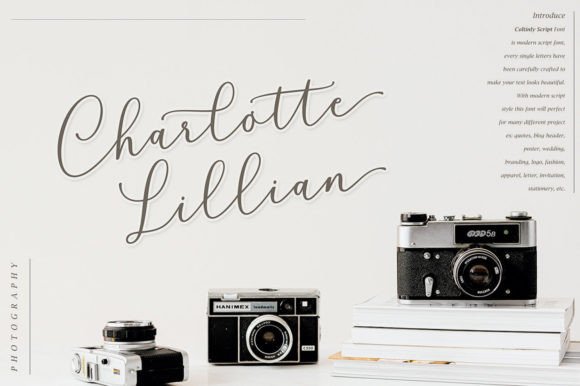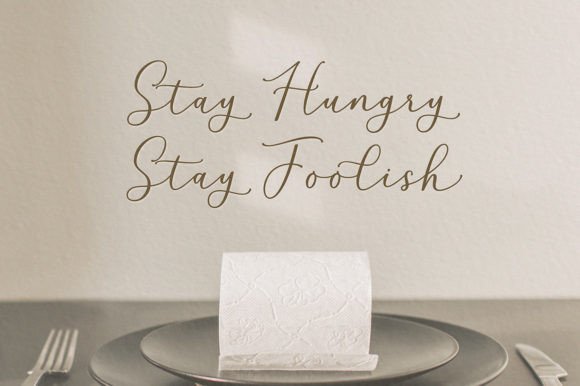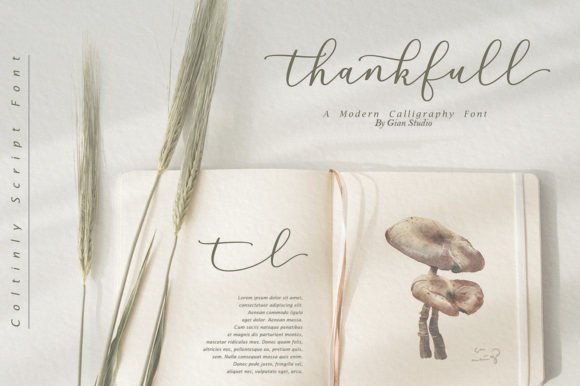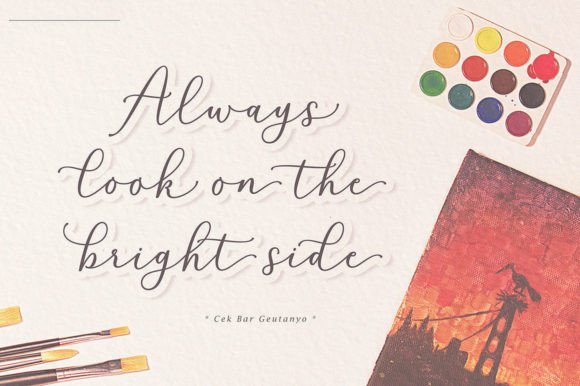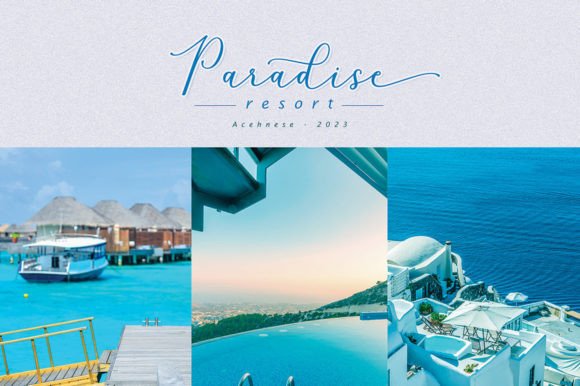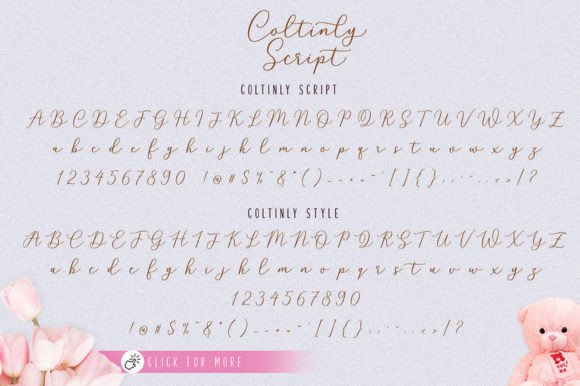
The Quest for the Perfect Script Font: Discovering Coltinly
I’ll never forget the time I was working on a wedding invitation project, and my client asked for a font that was both elegant and modern. I scoured the internet, tried out countless fonts, but nothing seemed to fit the bill. That was until I stumbled upon Coltinly Script Font. ✨
As a designer, I’ve learned that finding the right font can make or break a project. And I’m excited to share my experience with Coltinly, a beautiful script typeface that’s stolen my heart. In this article, we’ll dive into the world of Coltinly, exploring its features, how to use it, and what makes it so special.
A First Impression: What I Love About Coltinly
So, what makes Coltinly so charming? Here are a few things that I love about this font:
- 💕 Beautiful calligraphy: Coltinly’s script style is reminiscent of handwritten calligraphy, making it perfect for projects that require a personal touch.
- ✅ Modern and irregular baseline: This font’s unique baseline gives it a fresh, modern feel that’s hard to find in traditional script fonts.
- 🎉 PUA encoded: Coltinly is PUA (Private Use Area) encoded, which means you can access all the amazing glyphs and ligatures with ease!
- 📚 Versatile: Whether you’re working on wedding invitations, greeting cards, or social media graphics, Coltinly is suitable for a wide range of projects.
The Not-So-Perfect: A Few Quirks
While Coltinly is an amazing font, it’s not without its quirks. Here are a few things to keep in mind:
- 🤔 Limited kerning options: Some users might find the kerning options a bit limited, especially when working with longer texts.
- ⚠️ Occasional glyph issues: As with any font, there might be occasional issues with glyph rendering, especially on certain platforms or devices.
The Story Behind Coltinly
Coltinly is a font that’s close to my heart, but I don’t actually know its backstory. Let’s imagine that it was created by a young designer named Emma, who was inspired by the beautiful calligraphy of her grandmother. Emma wanted to create a font that would capture the essence of her grandmother’s writing style, while also making it modern and fresh.
- Q: What is Coltinly?
- A: Coltinly is a script typeface with beautiful calligraphy and a modern, irregular baseline.